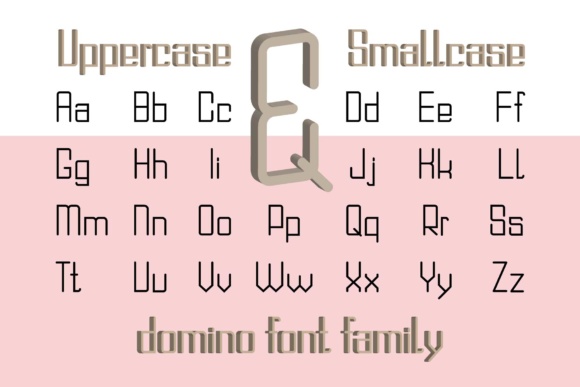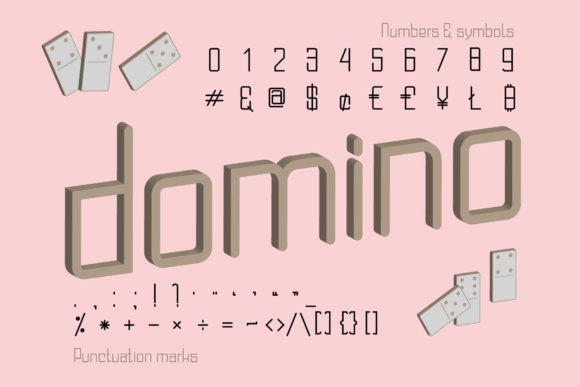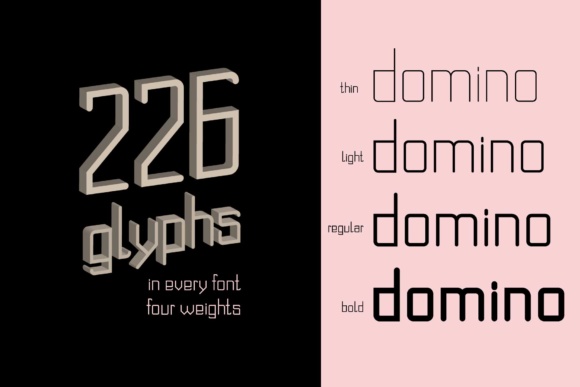
Introduction to Domino Family Font
Have you ever been stuck on a creative project, staring at a blank canvas or screen, desperately searching for the perfect font to bring your vision to life? That’s exactly where the Domino Family Font comes in – a versatile and high-quality design resource that’s sure to elevate your work.
Whether you’re designing a logo, creating an invitation, or crafting a magazine spread, the Domino Family Font is the perfect companion for your creative endeavors. With its four weights (thin, light, regular, and bold), you can easily adapt it to suit any context, from signage to web design, and even advertising.
What sets the Domino Family Font apart is its incredible versatility, making it a valuable asset for designers of all levels. Plus, with a transparent background and free download available, you can experiment with this design resource without any restrictions, allowing you to unlock your full creative potential.
Key Features of Domino Family Font
- Unique and Creative Design: Domino Family Font offers a distinctive and creative design that can elevate your project to the next level.
- High Quality: The font is designed with high-quality graphics, ensuring a crisp and clear appearance in various sizes and resolutions.
- Transparent Background: The font’s transparent background makes it perfect for use on various backgrounds, allowing for seamless integration into your design.
- Perfect for Design Projects: Domino Family Font is ideal for use in various creative projects, including logos, branding materials, and digital designs.
- Large Character Set: The font includes a large character set, including uppercase and lowercase letters, numbers, and special characters, making it suitable for a wide range of applications.
Honest Review: Domino Family Font
I recently had the opportunity to work with the Domino Family Font, and I must say it’s been a game-changer for my creative projects. The font’s high quality and versatility make it an excellent addition to any design resource.
- ✨ Easy to customize and use: The font is incredibly easy to work with, and the transparent background makes it simple to layer with other design elements.
- ✨ Great for titles and headings: The Domino Family Font is perfect for creating attention-grabbing titles and headings that add a touch of sophistication to any design.
- ⚠️ Limited font styles: While the font is high-quality, it’s limited in terms of font styles, which can be a drawback for designers who need a wide range of options.
- ⚠️ Not suitable for body text: Due to its ornate design, the font isn’t ideal for body text, making it better suited for titles and headings.
Overall, I’m thoroughly impressed with the Domino Family Font and would highly recommend it as a design resource for any creative project.
Domino Family Font
The Domino Family Font is a versatile and stylish design resource ideal for various creative projects. Its high-quality design and transparent background make it perfect for adding a touch of sophistication to your work.
For a more advanced design experience, use the Domino Family Font in Adobe Photoshop or Illustrator. This font is ideal for creating intricate designs and graphics, and its transparent background allows for seamless layering.
Tips for Getting the Most Out of the Domino Family Font
To get the most out of the Domino Family Font, experiment with different font sizes, colors, and styles to create a unique and eye-catching design. You can also combine the font with other design resources to create a cohesive and high-quality look.
The Domino Family Font is ideal for a variety of creative projects, including wedding invitations, branding materials, and social media graphics. Its versatility and high-quality design make it a great addition to any design resource collection.